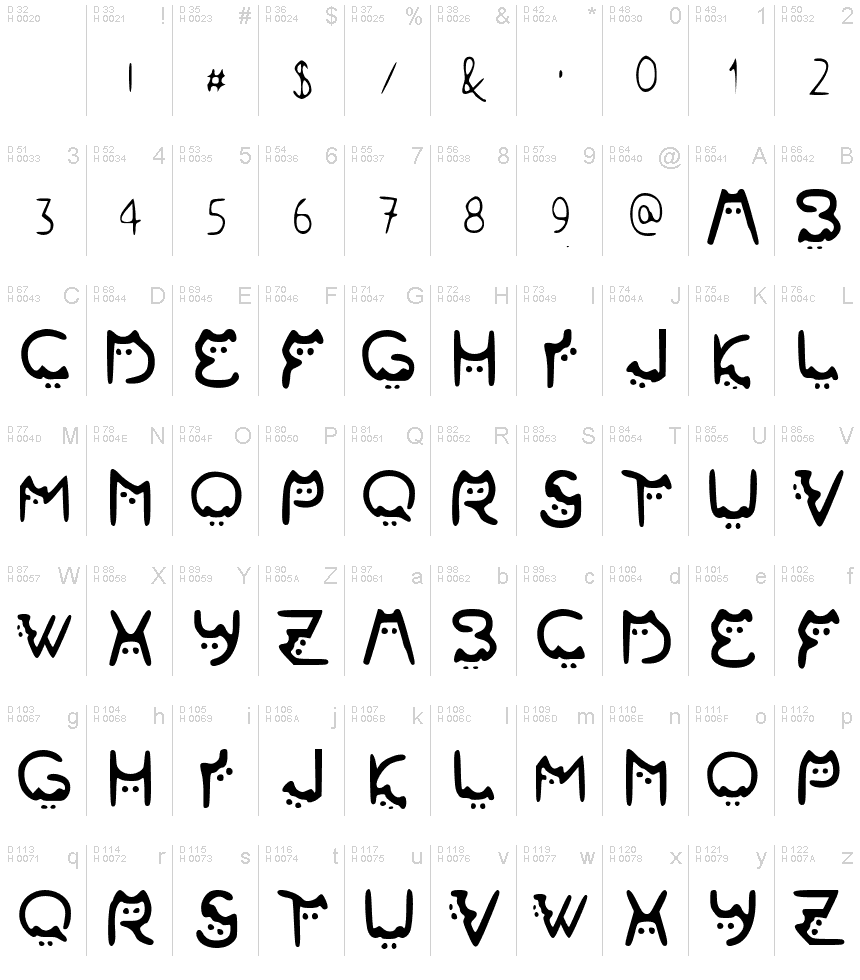
Meoww Regular
Meoww font is a free decorative typeface designed by Ana Nana.
uhhh so i found this font on Pinterest and i thought id make it a font!!!